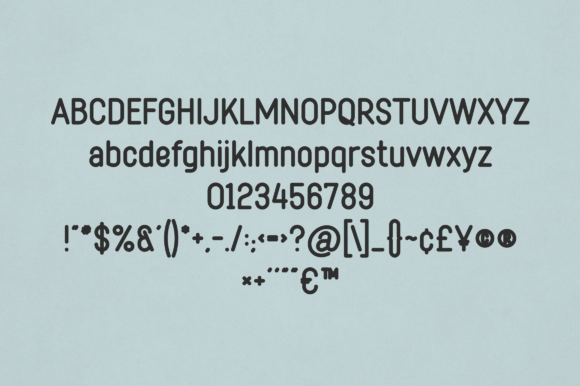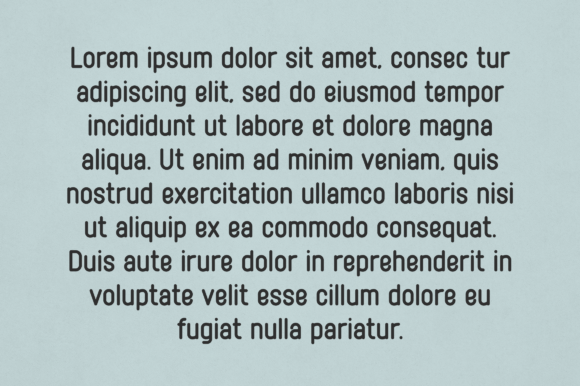
Discover the Magic of Grove Font
As a designer, have you ever stared at a blank canvas, desperate for the perfect font to bring your creative project to life? The search for the ideal typography can be daunting, but what if I told you that there’s a game-changing font that will elevate your designs to new heights? Say hello to the Grove Font, a stunning sans serif font that’s about to become your new go-to design resource.
The Grove Font is more than just a pretty face; it’s a versatile and elegant font that’s perfect for a wide range of applications, from branding projects and home-ware designs to product packaging and magazine headers. With its high-quality design and transparent background, this font is a free download waiting to be used in your next creative project.
Grove Font
- High-quality font design suitable for various creative projects, such as logos, branding, and digital art.
- Includes a transparent background, allowing for seamless integration into designs.
- Features a unique, modern aesthetic, making it an ideal choice for contemporary design projects.
- High-resolution design, suitable for use at large sizes without losing clarity or detail.
- Includes a comprehensive character set, including uppercase and lowercase letters, numbers, and punctuation marks.
Honest Review: Grove Font
As a designer, I’m always on the lookout for high-quality design resources that can elevate my creative projects. Recently, I stumbled upon the Grove Font, and I’m excited to share my thoughts on this versatile font.
What works well: ✨ The Grove Font is incredibly versatile, with a range of styles that can be used for both digital and print designs. The font is highly customizable, allowing you to adjust the size, color, and even add a transparent background to suit your design needs. This makes it a fantastic resource for creatives who want to add a professional touch to their projects.
What doesn’t work well: ⚠️ While the Grove Font is high-quality, it’s not suitable for all types of designs. For instance, the font can be a bit too elegant for bold or playful designs, and may not be the best choice for headings or titles.
Here are some key features of the Grove Font:
- High-quality, professional font
- Customizable size, color, and background
- Suitable for digital and print designs
Overall, I’m impressed with the Grove Font and would recommend it to designers who are looking for a high-quality, versatile font to add to their design arsenal. However, it’s essential to consider the specific needs of your creative project before deciding whether the Grove Font is the right choice for you.
Grove Font
The Grove Font is a versatile and elegant design resource perfect for any creative project. With its high-quality, transparent background, you can easily customize it to fit your needs.
Getting the Most Out of Grove Font
Here are some tips for getting the most out of the Grove Font:
- Experiment with different font sizes and colors to create a unique look.
- Use the Grove Font in combination with other design elements to create a cohesive design.
- Take advantage of the transparent background to create a seamless design.
The Grove Font is perfect for:
- Designing elegant business cards and letterheads.
- Creating beautiful blog posts and articles.
- Designing stunning social media graphics.
Montserrat Font is a modern sans-serif typeface designed for digital media, ideal for creative projects requiring a clean and minimalist look. It’s available for free download with a transparent background, making it a great design resource for graphic designers and digital artists. When to use: For high-quality digital designs, such as logos, icons, and typography-based graphics. Comparison: Montserrat Font is more geometric and futuristic compared to Grove Font, making it a great choice for projects that require a bold and edgy feel.
Open Sans Font is a highly legible sans-serif typeface designed for web and print media, suitable for a wide range of creative projects, including presentations, infographics, and product designs. It’s available for free download with a transparent background and is a popular design resource among designers. When to use: For high-quality print and digital designs, such as brochures, posters, and website typography. Comparison: Open Sans Font is more rounded and friendly compared to Grove Font, making it a great choice for projects that require a approachable and inviting feel.